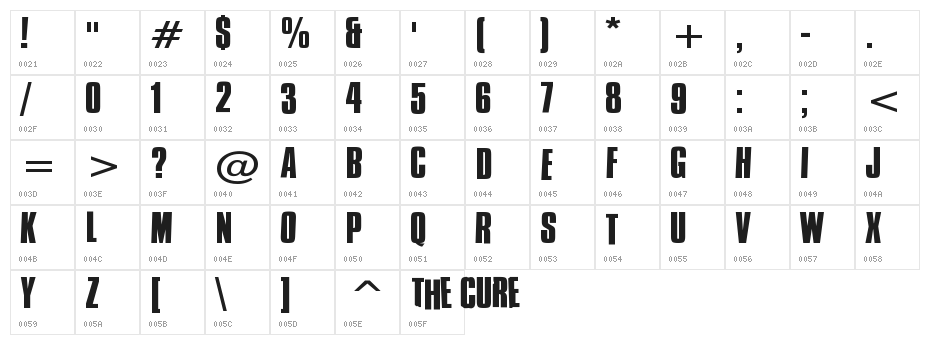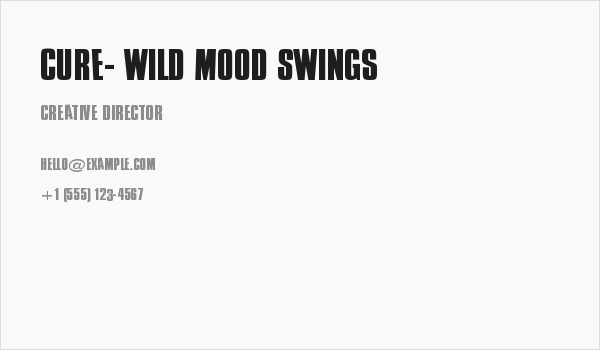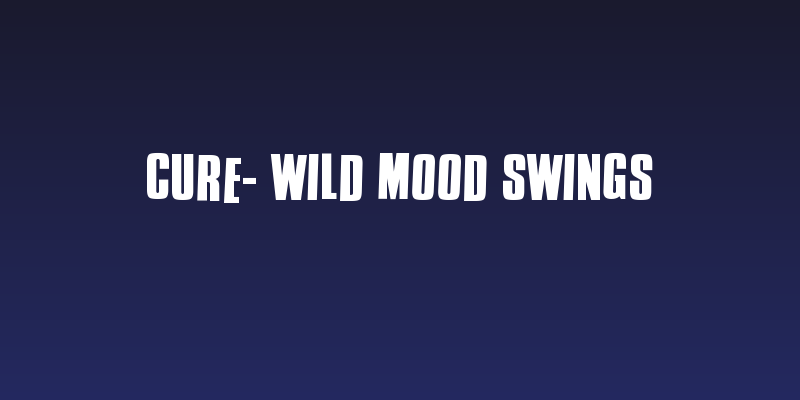
Cure- Wild Mood Swings Font
Cure- Wild Mood Swings Description
This bold and impactful font features thick, uniform strokes that create a strong visual presence. The uppercase letters are tall and commanding, while the lowercase letters maintain a consistent height, ensuring readability and balance. The numbers are equally bold, matching the assertive style of the alphabet. Special characters are designed with the same weight and presence, making them stand out effectively. The font's overall design is clean and modern, with a slight vintage touch due to its blocky, geometric shapes.